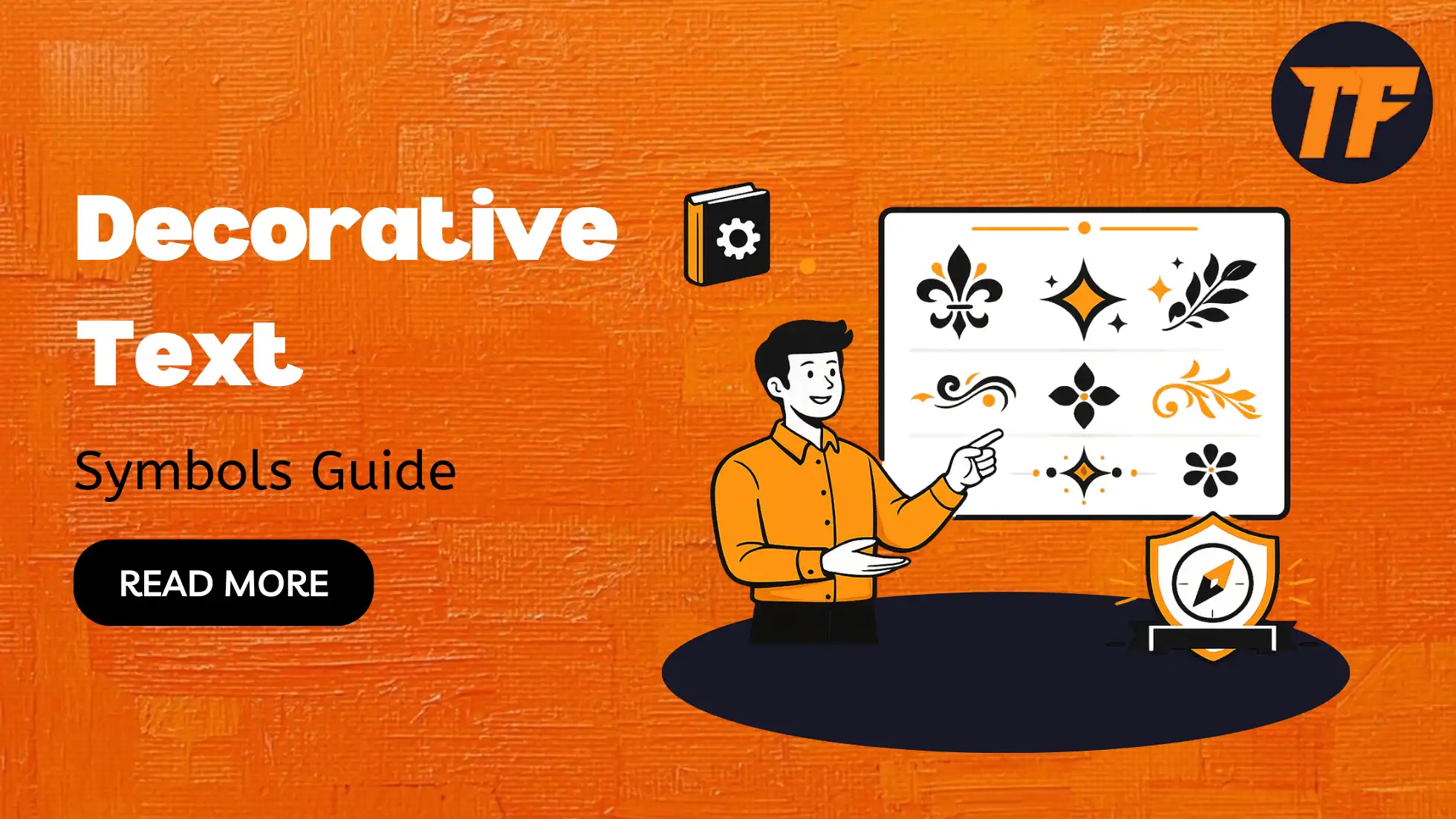
Decorative Text Symbols
Decorative Text Symbols Guide: Types, Benefits, Uses & Best Practices
Decorative text symbols are special characters that are used to make plain text look more stylish and visually appealing. They include shapes, stars, arrows, hearts, and other Unicode symbols that can be added to words or sentences. People use them in social media bios, usernames, captions, and messages to make their text stand out.
These symbols do not change the meaning of the text, but they change its appearance. They are simple to use and work on most platforms, making everyday text more expressive and engaging. In this article, we will explain what decorative text symbols are and how they are used.
What are Decorative Text Symbols?
Decorative text symbols are special characters that are used to make text look more visually appealing. They are part of the Unicode character set, which includes a wide range of symbols beyond regular letters and numbers. These symbols include shapes, stars, arrows, hearts, and other stylistic elements that can be added before, after, or within text, such as turning “Welcome” into “✨ Welcome ✨” or “Aesthetic” into “💖 Aesthetic 💖”.
They do not change the actual meaning of the words, but they change how the text looks. People use them to style usernames, bios, captions, and messages. Decorative text symbols are supported on most modern devices and platforms, which makes them easy to copy and use anywhere.
Types of Decorative Text Symbols
Decorative text symbols come in different styles and categories, each adding a unique visual effect to text and helping create different moods or aesthetics.
• Stars and sparkles ✨ (★ ☆ ✧): Used to make text look magical or highlight something special
• Hearts and love symbols 💖 (♥ ♡ ❥): Common in romantic or cute-style text
• Arrows and pointers ➜ (➤ ➝ ➺): Used to guide attention or add direction to text
• Shapes and geometric symbols ● (■ ▲ ◆): Used for structure, bullets, or minimal design
• Brackets and borders 『 』 (【 】 「 」): Used to frame or highlight words
• Floral and decorative elements 🌸 (✿ ❀ ❁): Used for soft, aesthetic, or nature-themed styles
Benefits of Using Decorative Text Symbols
Decorative text symbols are widely used because they improve the overall appearance of text and help users express style and personality in simple, creative ways.
They are not only visual additions but also serve practical purposes in digital communication, especially on social media and messaging platforms.
1. Improves visual appeal
Decorative symbols make plain and simple text look more attractive and visually engaging. By adding symbols like stars, hearts, or shapes, the text becomes easier to notice and more pleasant to read. This is especially useful for bios, captions, and usernames where visual presentation matters.
2. Helps express personality and style
Different symbols can represent different moods and aesthetics, such as cute, aesthetic, bold, or minimal styles. Users can choose symbols that match their personality or the tone they want to create, making their text feel more personal and unique.
3. Makes text stand out
Using decorative symbols helps highlight important words or phrases within a sentence. Symbols like ✨, 💖, or ➜ draw attention and make certain parts of the text stand out in posts, messages, or crowded social media feeds.
4. Easy to use and copy
Decorative text symbols are simple to use because they can be easily copied and pasted from lists or keyboards. No technical skills are needed, and they can be quickly added to any text, making them accessible for everyone.
5. Works across platforms
Since decorative text symbols are based on Unicode, they are supported on most modern devices, apps, and websites. This means users can use them across different platforms like Instagram, WhatsApp, TikTok, and more without compatibility issues.
Where to Use Decorative Text Symbols
Decorative text symbols can be used in many digital spaces where people share text and want it to look more engaging or personalized. They are most popular in online platforms where appearance and style play an important role in communication.
Social media bios
Decorative symbols are commonly used in Instagram, TikTok, and X (Twitter) bios to make profiles look more attractive and memorable. They help users highlight their name, interests, or status in a visually appealing way, such as “✨ Student | Creator ✨”.
Usernames and display names
Many people add symbols to their usernames in gaming platforms or social apps to create a unique identity. For example, adding stars or hearts can make a simple name look more stylish and stand out from others.
Captions and posts
On platforms like Instagram and Facebook, decorative symbols are often used in captions to emphasize words, separate ideas, or simply make posts look more creative and eye-catching.